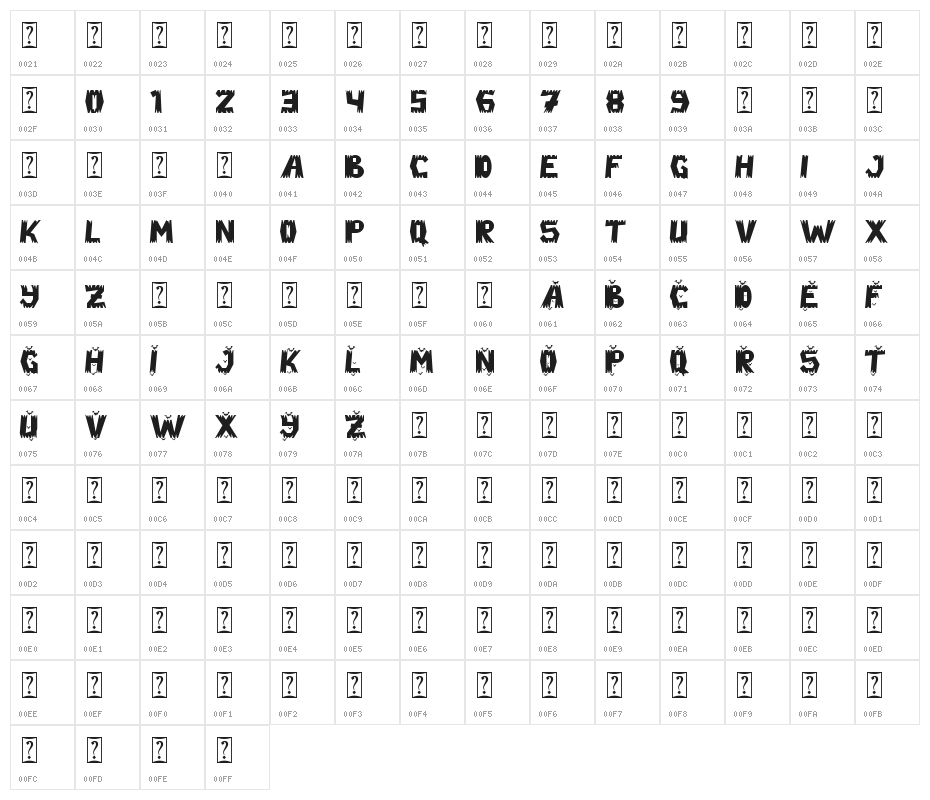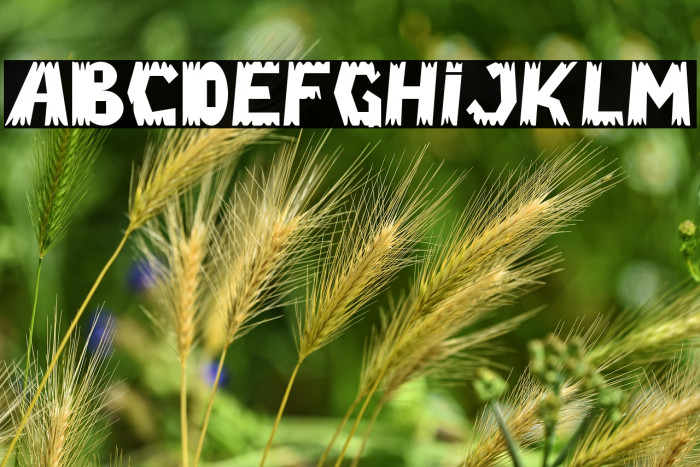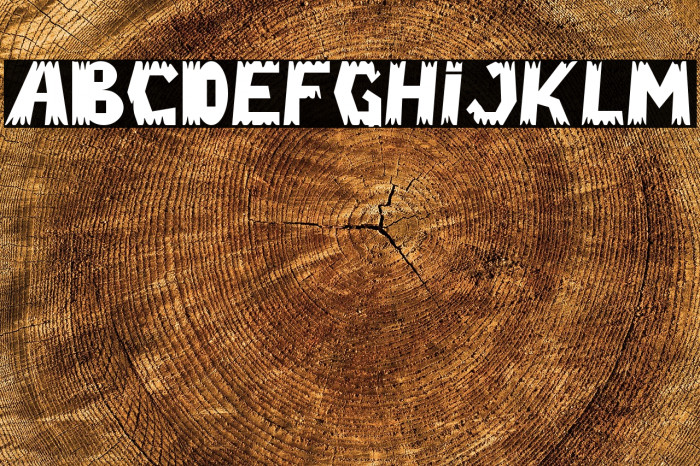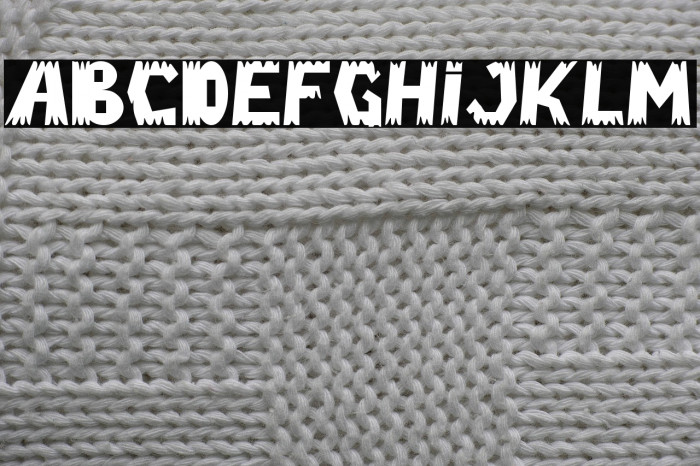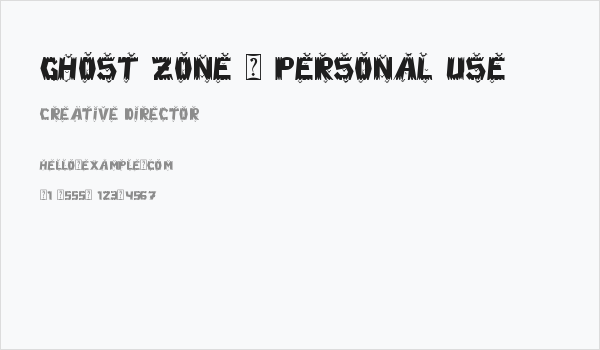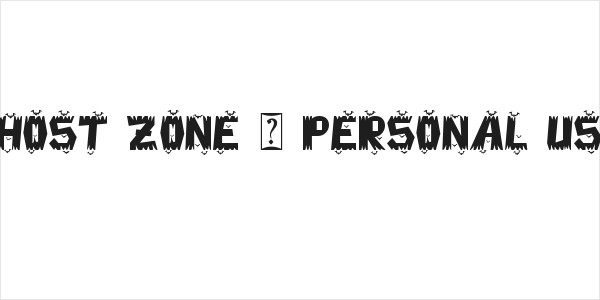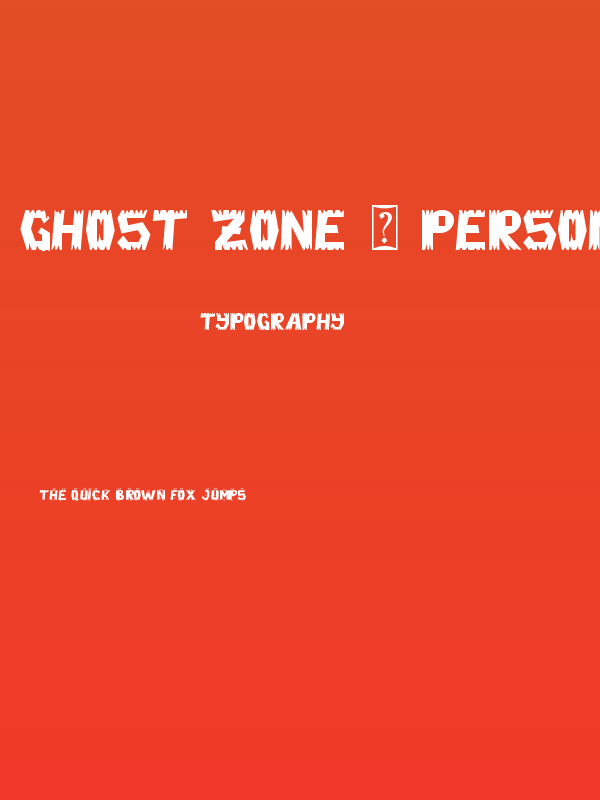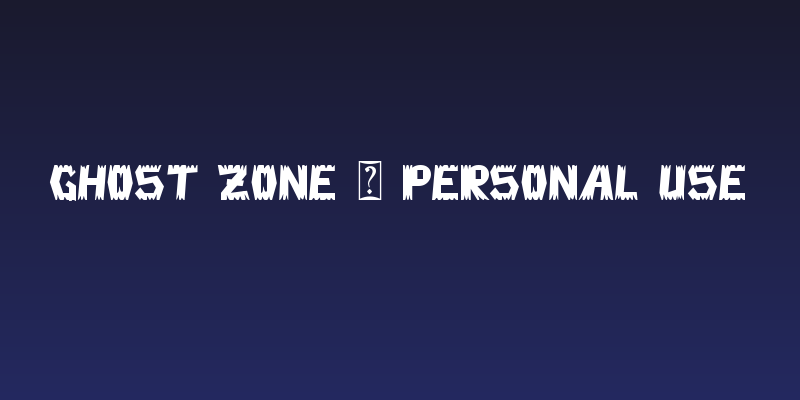
Ghost Zone - Personal Use Font
Ghost Zone - Personal Use Description
This font features a bold and spooky design, with characters that have jagged edges and a dripping effect, reminiscent of horror themes. The uppercase and lowercase letters maintain a consistent style, with sharp angles and a dramatic flair. Numbers and special characters follow the same eerie aesthetic, making the font ideal for Halloween-themed projects or anything requiring a chilling, mysterious vibe. The unique design elements give it a distinct personality, perfect for capturing attention and evoking a sense of intrigue.
| Proposed Projects | Perfect for Halloween invitations, horror movie posters, haunted house flyers, and themed event branding. |